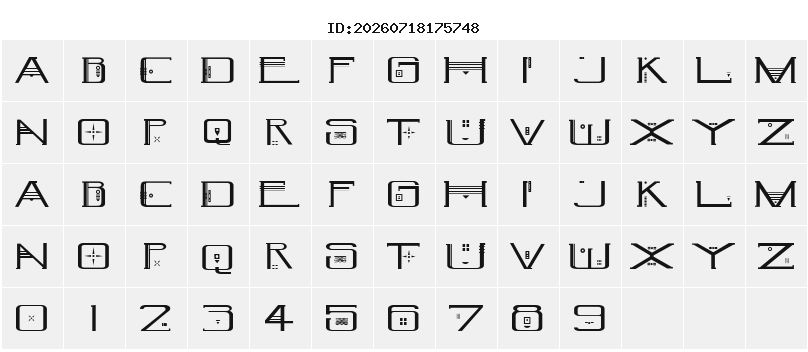
CultLove Ornate Preview
About CultLove Ornate.ttf
CultLove Ornate.ttf is a modern, elegant sans-serif font designed for ultimate readability and visual harmony. Perfect for branding, headlines, web design, and print materials.